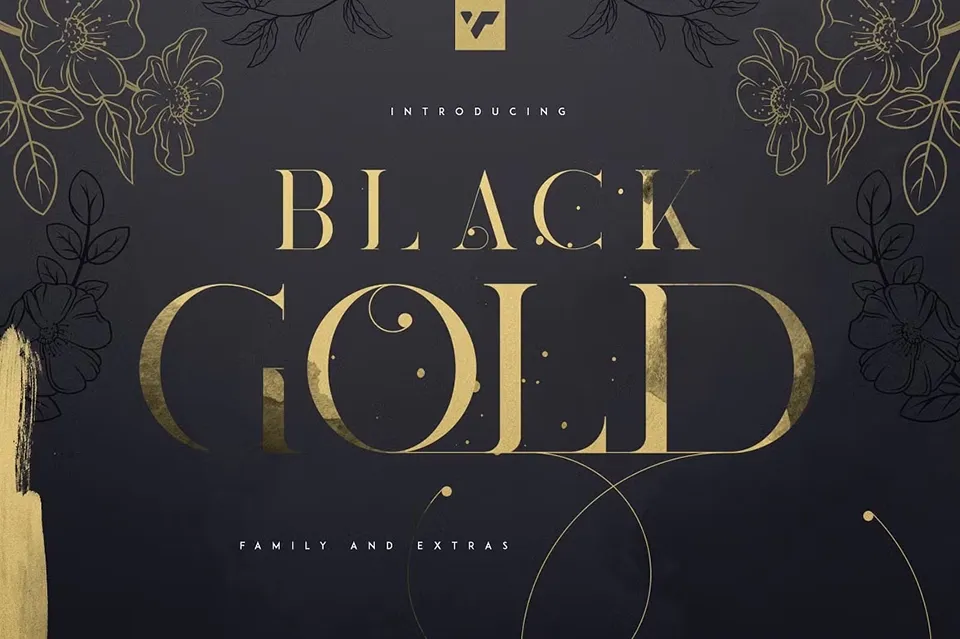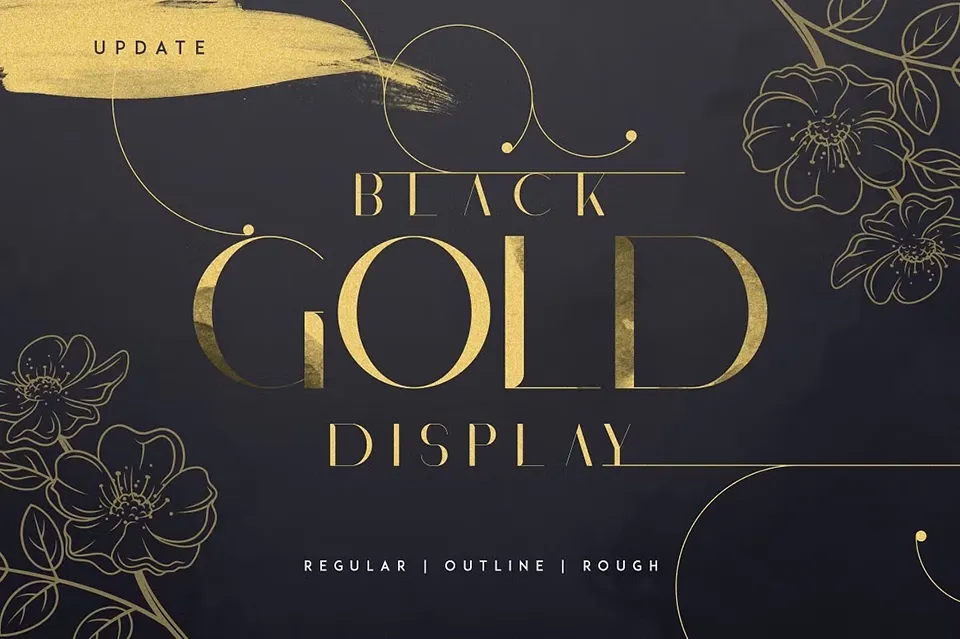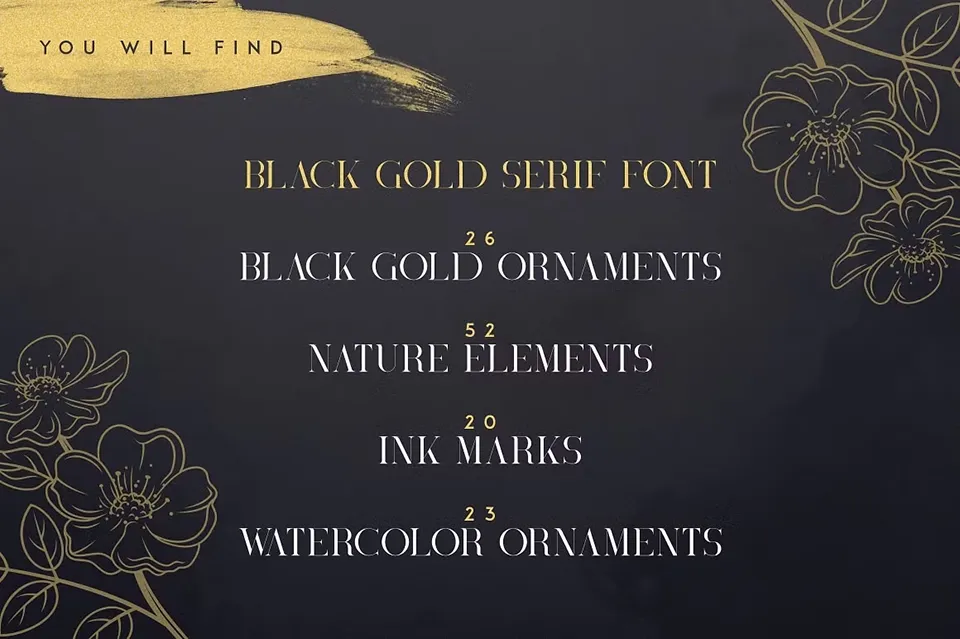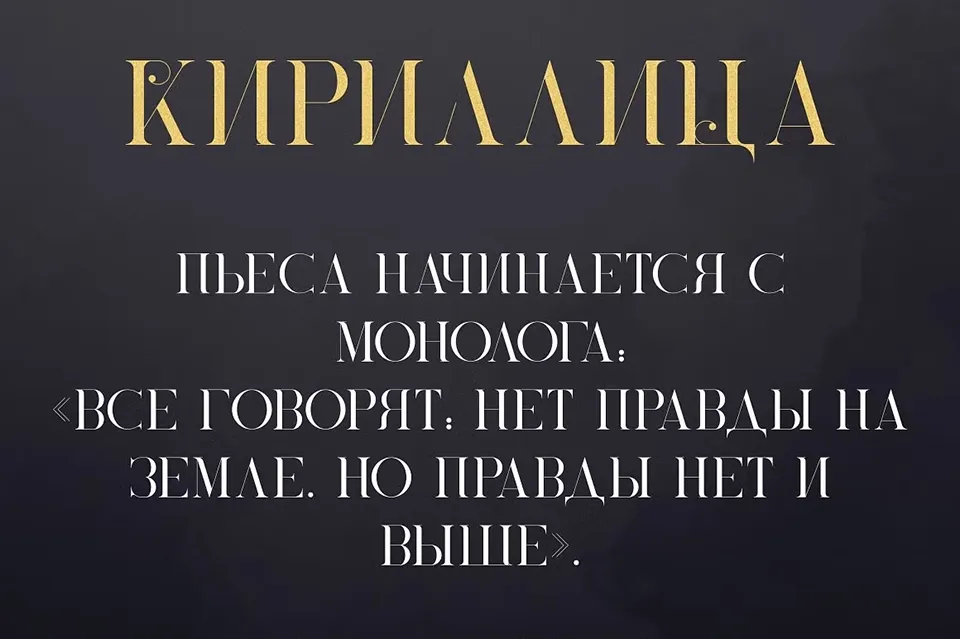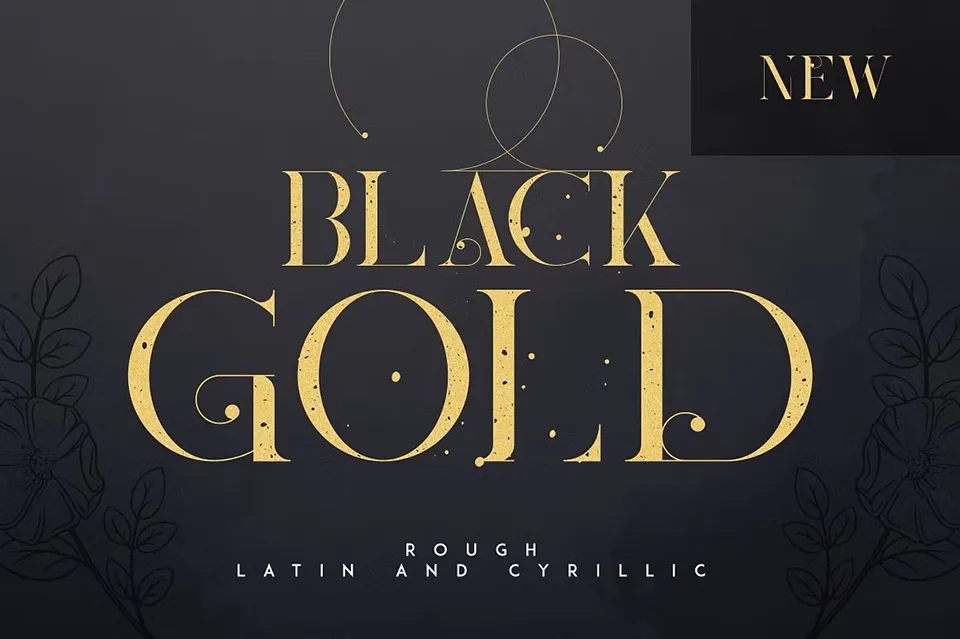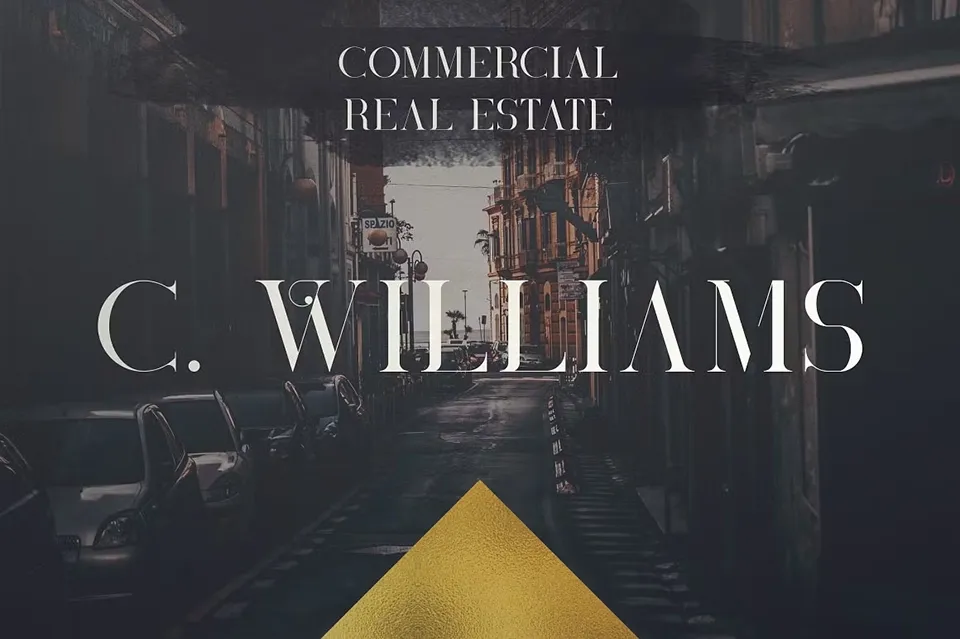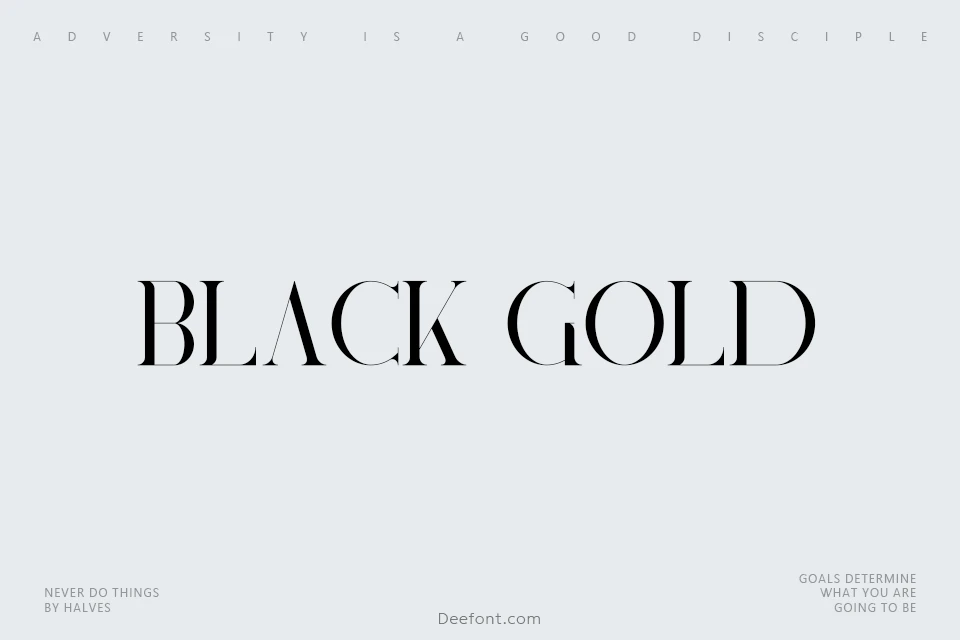
Black Gold Serif Font
Black Gold Serif Font is a sophisticated serif typeface featuring a wealth of alternative glyphs, ornaments, nature elements, Photoshop styles, watercolors, ink marks, and multilingual support. This versatile font is perfect for branding projects, homeware designs, product packaging, magazine headers, or as a stylish text overlay on any background image. Its elegant design and extensive extras make it an excellent choice for both large and small typography needs, allowing you to add a touch of timeless elegance to your creative work.